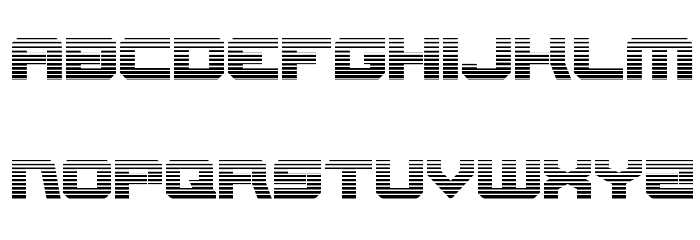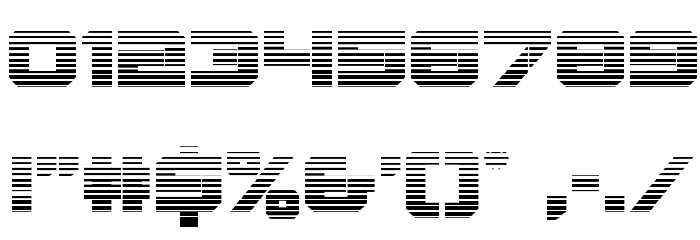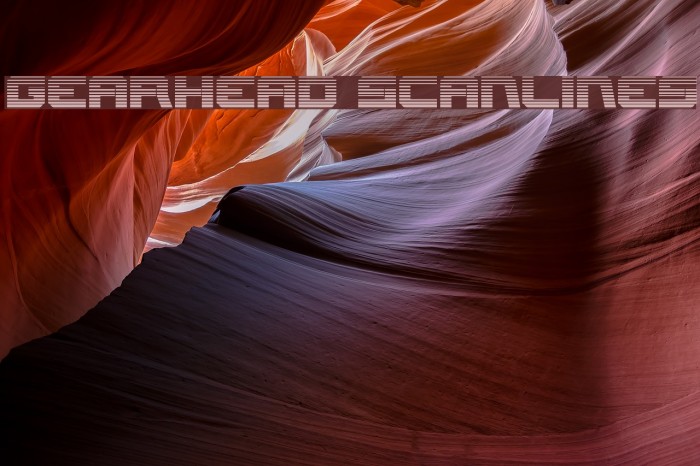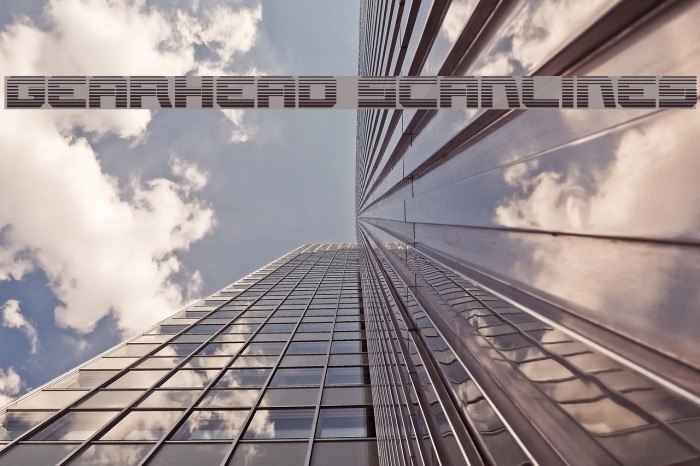
Gearhead Scanlines Font
This font features a unique design characterized by horizontal scanlines running through each character, giving it a futuristic and digital appearance. The characters are bold and geometric, with a consistent width and sharp angles that create a sense of precision and modernity. The uppercase and lowercase letters maintain a uniform style, while the numerals and special characters integrate seamlessly with the overall aesthetic. The scanline effect adds a layer of complexity and texture, making the font stand out in digital and tech-themed projects.
A futuristic font with bold, geometric characters and a distinctive scanline effect.
- Font: Gearhead Scanlines
- Proposed Projects: Ideal for digital interfaces, tech branding, video game titles, and sci-fi themed designs.